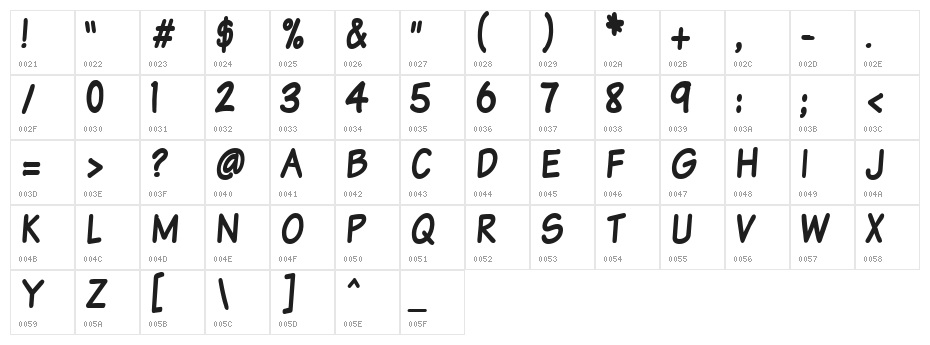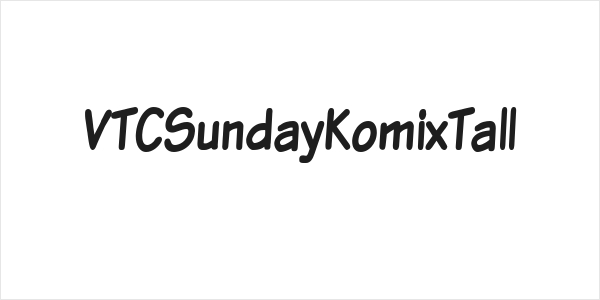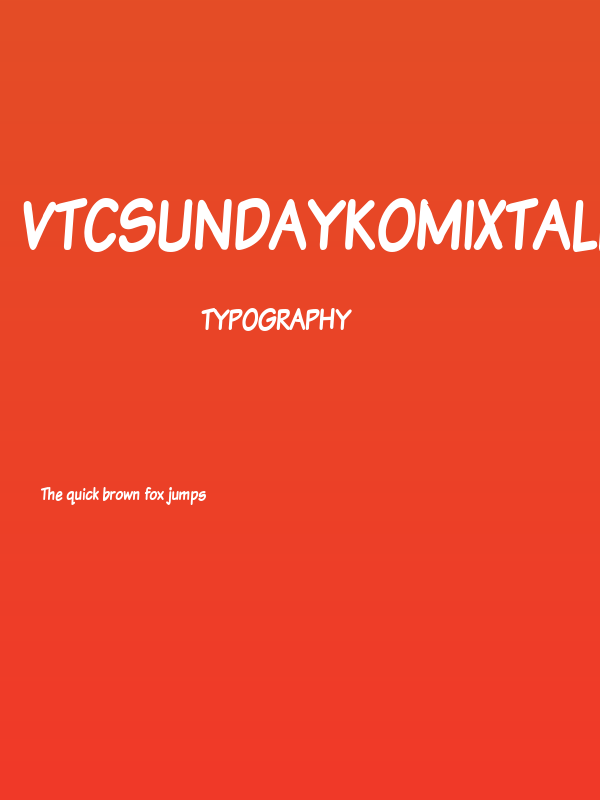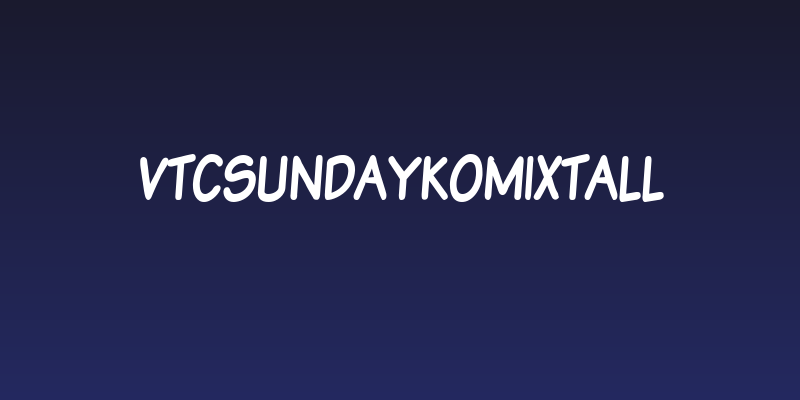
VTCSundayKomixTall Font
VTCSundayKomixTall Description
This font features a playful and bold handwritten style, characterized by its thick strokes and rounded edges. The letters have a casual, comic-like appearance, making them highly legible and engaging. The uppercase and lowercase letters maintain a consistent style, with a slightly exaggerated height that adds to the font's whimsical nature. Numbers and special characters are equally bold and maintain the same playful aesthetic, ensuring a cohesive look across all text elements. This font is ideal for projects that require a fun and informal tone, such as children's books, comic strips, or playful branding.
| Proposed Projects | Children's books, comic strips, playful branding, casual invitations. |